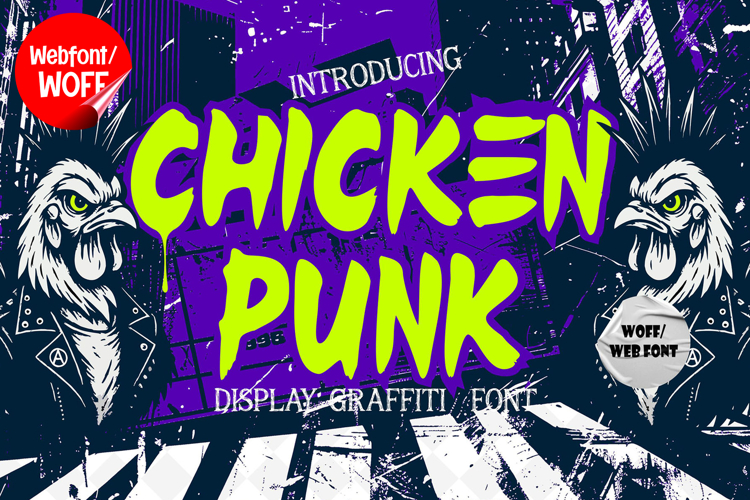
Chicken Punk | Graffiti Webfont for Raw Urban Attitude
Chicken Punk is a graffiti webfont designed to deliver raw street energy, rebellious attitude, and bold personality for modern website design. Inspired by punk culture and urban graffiti styles, this font features edgy letterforms, irregular shapes, and expressive strokes that create a strong and unconventional visual identity. It is an excellent choice for projects that aim to stand out with a gritty and energetic typographic style.
Chicken Punk includes a complete set of uppercase characters designed with graffiti-inspired forms. The letterforms are bold and unpredictable, combining sharp edges with organic movement to create a sense of chaos and freedom. These characteristics make it ideal for headlines, banners, hero sections, and featured content where strong visual impact is essential.
In addition to letters, the font includes numbers and punctuation, allowing flexible usage across various parts of a website. It works well for music platforms, streetwear brands, event promotions, creative portfolios, and edgy digital campaigns. Each character maintains a consistent graffiti style, ensuring a cohesive and unified visual identity throughout the layout.
With multilingual support, Chicken Punk includes a wide range of accented characters, making it suitable for international websites and global audiences. This ensures content remains accessible and visually consistent across different languages while maintaining its bold and rebellious aesthetic.
The graffiti style of Chicken Punk makes it especially suitable for urban-themed websites, punk-inspired branding, music content, gaming interfaces, and creative projects. Its expressive and unconventional design adds personality and intensity, helping websites stand out in competitive digital environments. The raw visual style enhances authenticity and creative freedom.
Despite its wild and edgy appearance, Chicken Punk is designed with readability in mind. The spacing and proportions are carefully balanced to ensure clarity, particularly in display sizes. This makes it effective for impactful headings and short content elements where both style and usability are important.
Chicken Punk is a webfont that combines graffiti aesthetics with punk-inspired expression and modern digital performance. Its bold shapes, dynamic flow, and rebellious character create a distinctive typographic presence that enhances website design. For projects that require a strong, edgy, and visually engaging graffiti font, Chicken Punk offers a powerful and creative solution.